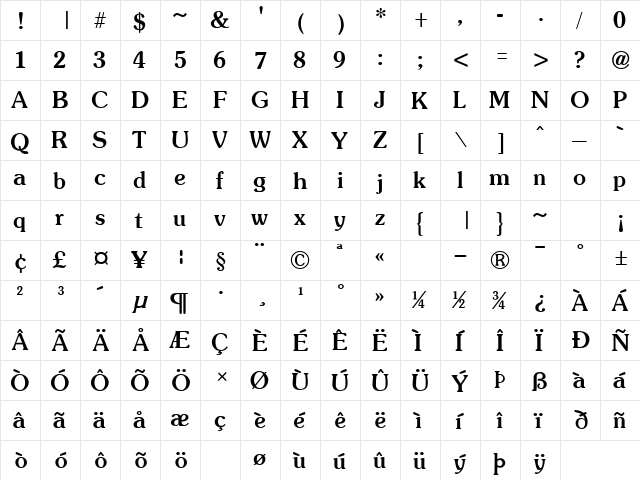
GE Sultan Bold
Design Context for GE Sultan Typeface
GE Sultan offers clean, dependable letterforms without strong stylistic allegiance, making it a practical choice for designers who need flexibility. Its bold stroke weight gives it real presence on the page.